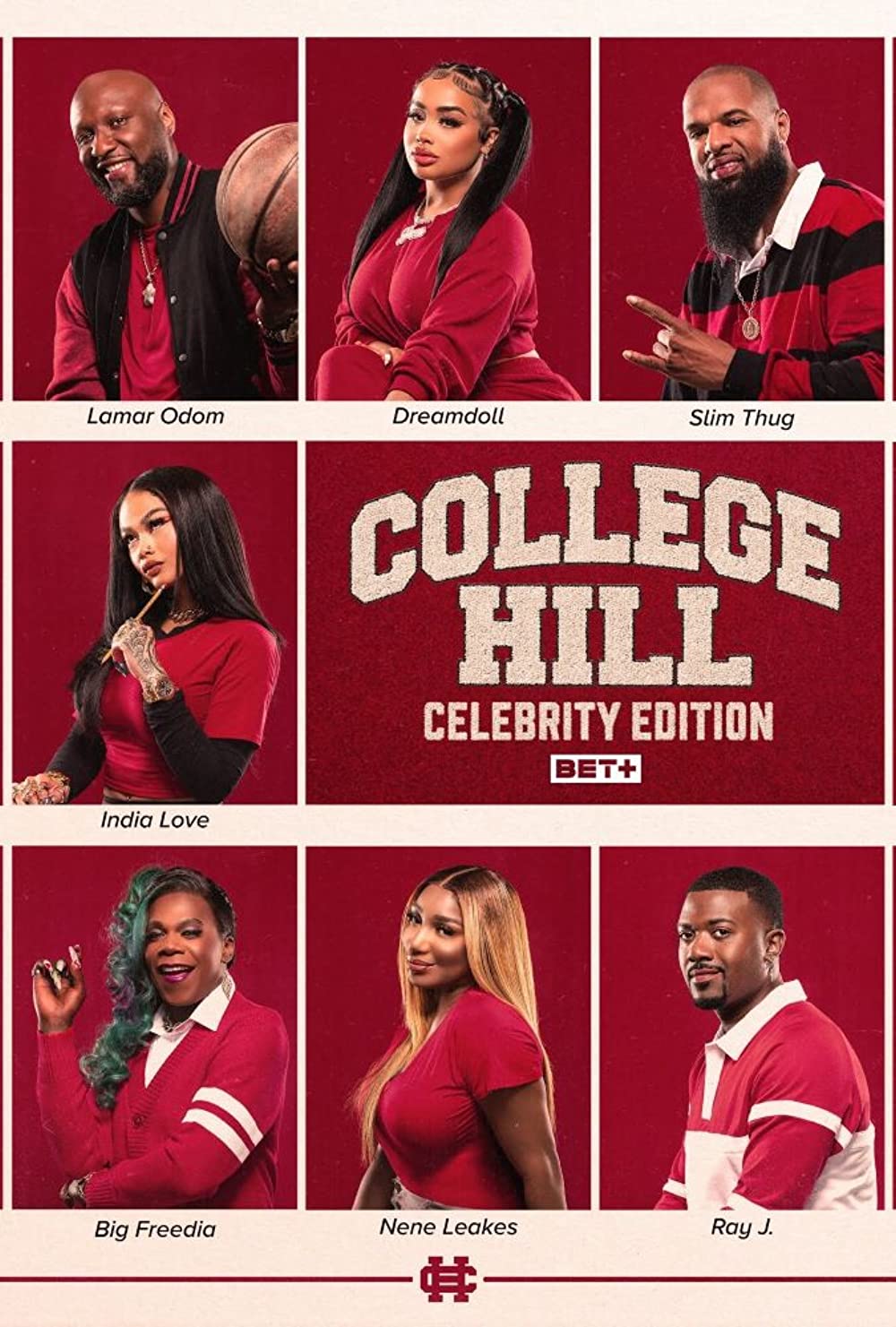
College Hill Celebrity Edition Font
Fonts in UseCollege Hill: Celebrity Edition is a reality TV series that aired on BET in 2007. The show featured past cast members of College Hill and other celebrities living in a luxurious mansion in Los Angeles, California.
The "College Hill" logo on the cover art resembles Freshman or Collegiate Black fonts, which are available for free download here at FontGet. The sans serif for "Celebrity Edition" resembles Prohibition, inspired by traditional posters of war, labor, and industrial factories, designed by Mattox Shuler.